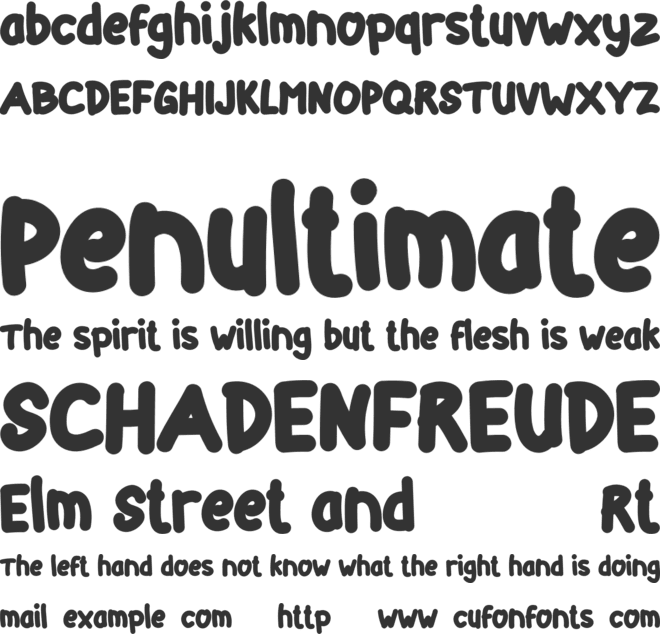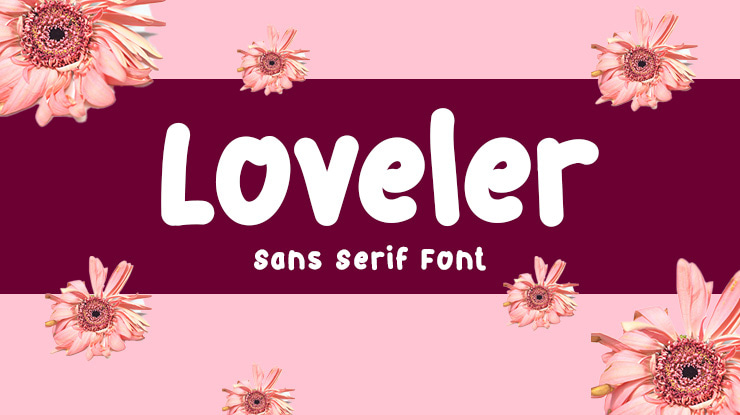
Loveler Font Family
Loveler is designed in a fun bold sans serif font style. Let's try it for your projects, such as back to school, weddings, party decorations, invitations, posters, blogs, social media posts, or anything that needs a relaxed touch. Add it now to your font library, and it will bring your DIY projects to life.